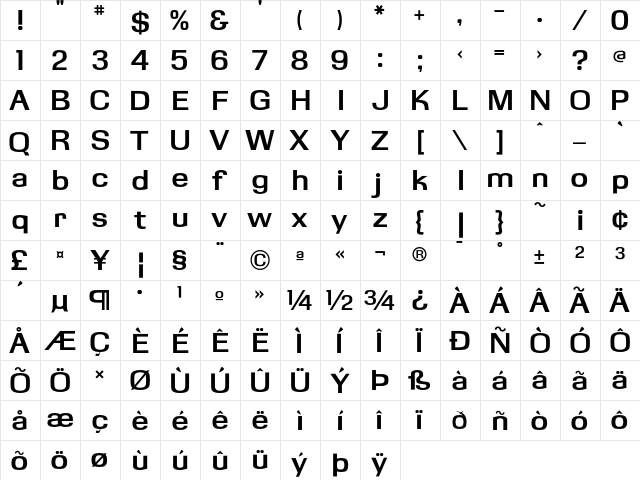
KasseFLF Bold
Design Context for KasseFLF Typeface
KasseFLF offers clean, dependable letterforms without strong stylistic allegiance, making it a practical choice for designers who need flexibility. Its bold stroke weight gives it real presence on the page.
Pro Tip: Pair KasseFLF with a font of contrasting weight or personality to build a more expressive typographic hierarchy.